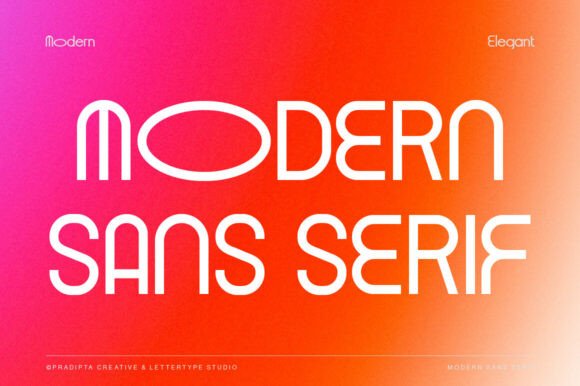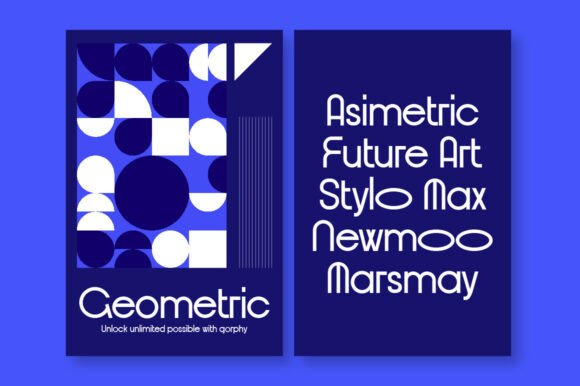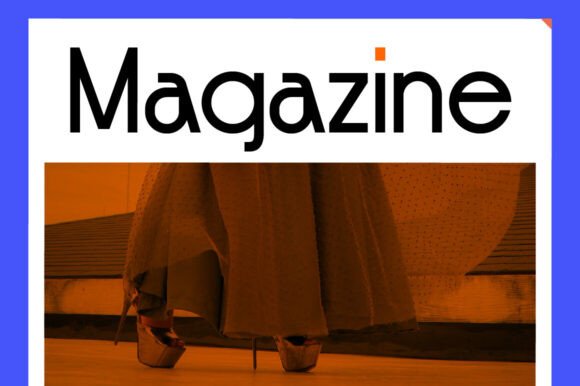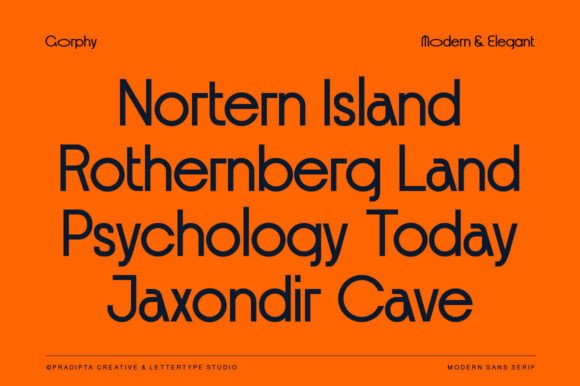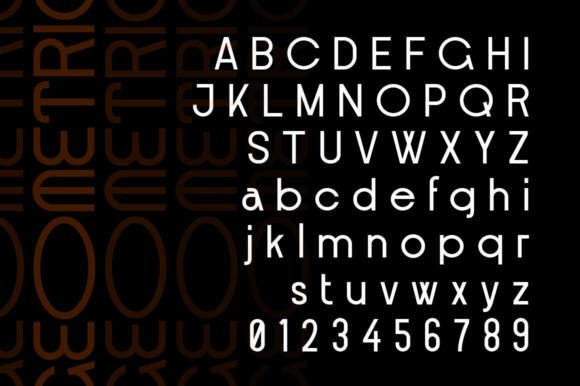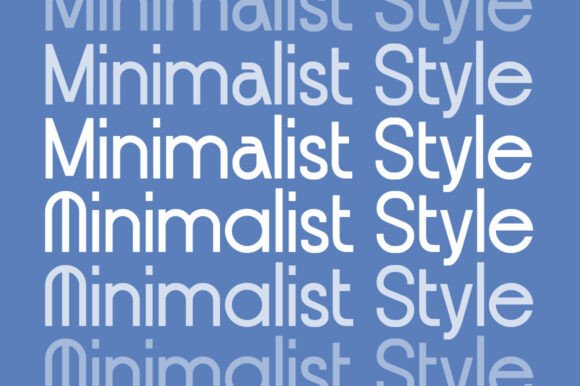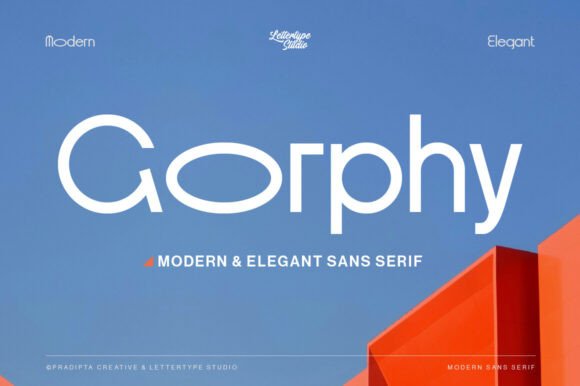
Introducing Gorphy Font: Elevate Your Designs with Modern Elegance
In the world of design, fonts play a crucial role in conveying the message and aesthetic of a project. For designers and crafters looking for a modern and elegant sans serif font that offers extensive customization options, Gorphy Font is an excellent choice. With its sleek lines and versatile design, Gorphy is perfect for a wide range of applications, from photography and social media posts to logos, branding, and product packaging.
The Versatility of Gorphy Font
Gorphy Font is a modern sans serif font that boasts over 10+ unique alternate glyphs, providing endless possibilities for customization and creativity. This feature allows designers to have complete control over their projects, tailoring the font to fit their unique vision. Whether you’re working on a photography project, creating watermarks, or designing social media posts, Gorphy Font offers the flexibility to make your designs stand out.
One of the key benefits of Gorphy Font is its versatility. This font can be used for a variety of design projects, including:
- Photography: Add a touch of elegance to your photo captions, watermarks, or album covers.
- Social Media Posts: Create eye-catching posts, stories, and graphics that grab attention.
- Advertisements: Use Gorphy Font to create compelling ad copy that resonates with your audience.
- Logos and Branding: Establish a strong brand identity with a custom logo or typography.
- Invitations: Design beautiful invitations for special events, weddings, or parties.
- Product Designs: Add a professional touch to your product labels, packaging, or stationery.
Key Features of Gorphy Font
Gorphy Font offers several key features that make it an attractive choice for designers:
- Modern and Elegant Design: A sleek sans serif font that exudes sophistication.
- Extensive Customization Options: Over 10+ unique alternate glyphs for endless creativity.
- High-Quality Typography: Carefully crafted to ensure clarity and readability.
- Multipurpose: Suitable for a wide range of design projects.
Why Choose Gorphy Font?
In a crowded market, Gorphy Font stands out for its unique combination of style, versatility, and customization options. Here are a few reasons why designers and crafters should consider Gorphy Font for their next project:
- Unique Designs: The font’s modern and elegant design ensures your projects look fresh and contemporary.
- Time-Saving: With extensive customization options, you can achieve the desired look without spending hours on design.
- Professionalism: Gorphy Font’s high-quality typography adds a professional touch to any project.
| Font Name | Gorphy Font |
| Author | pradiptacreative |
Gorphy Font is a powerful tool for designers and crafters looking to elevate their designs with a modern and elegant sans serif font. Its extensive customization options, versatility, and high-quality typography make it an excellent choice for a wide range of projects. Whether you’re working on a photography project, creating social media content, or designing product packaging, Gorphy Font offers the perfect blend of style and functionality. Explore the possibilities of Gorphy Font today and take your designs to the next level.